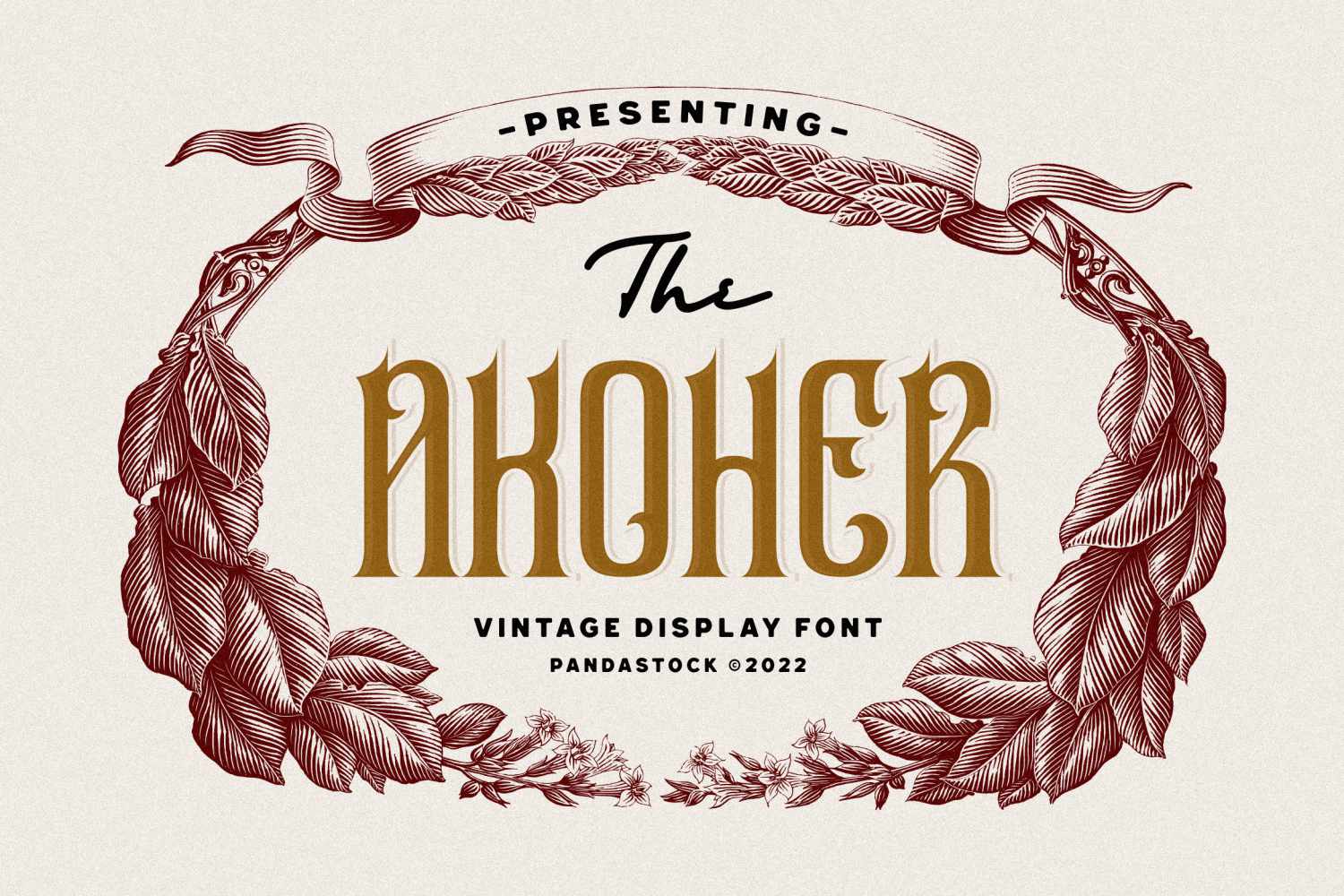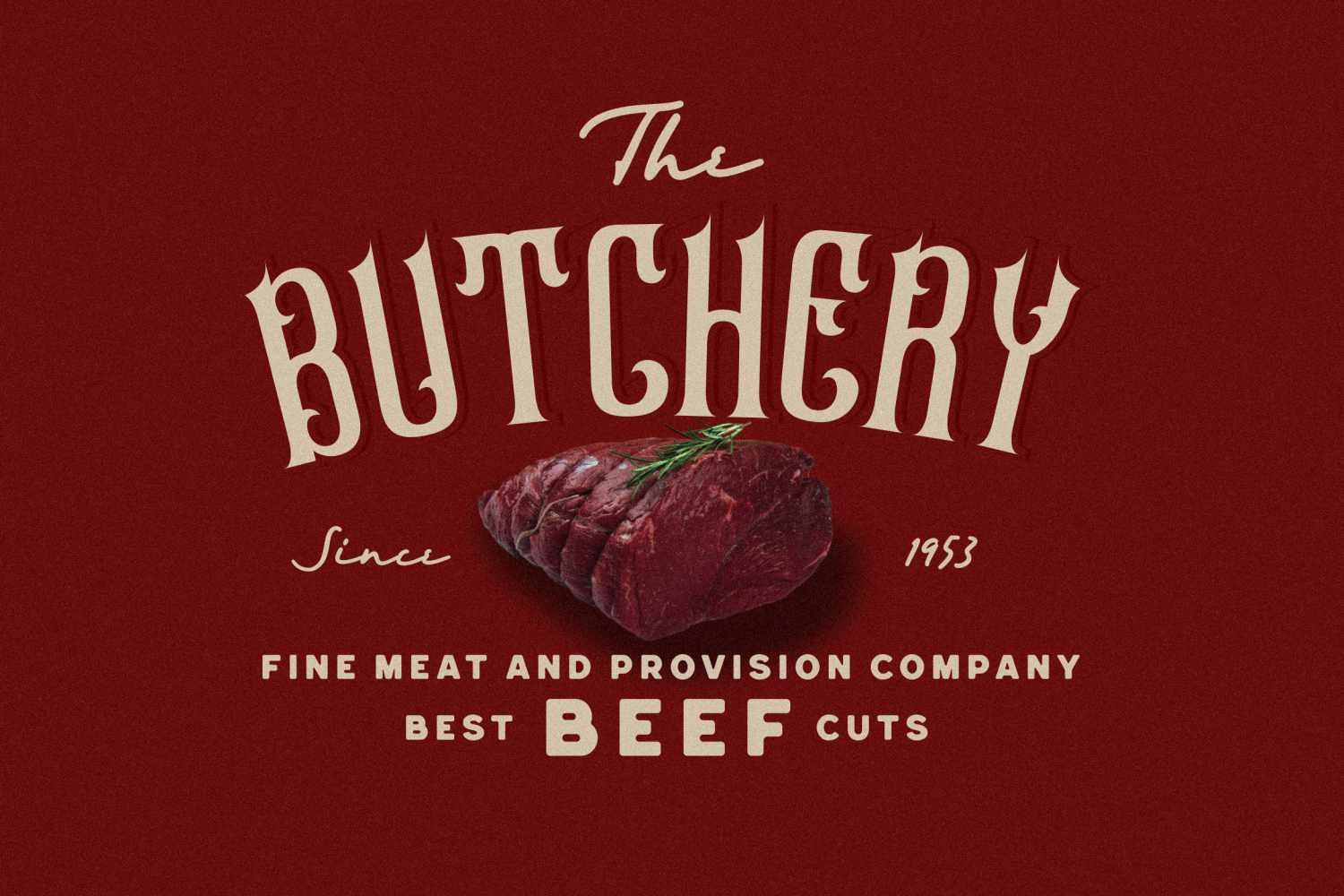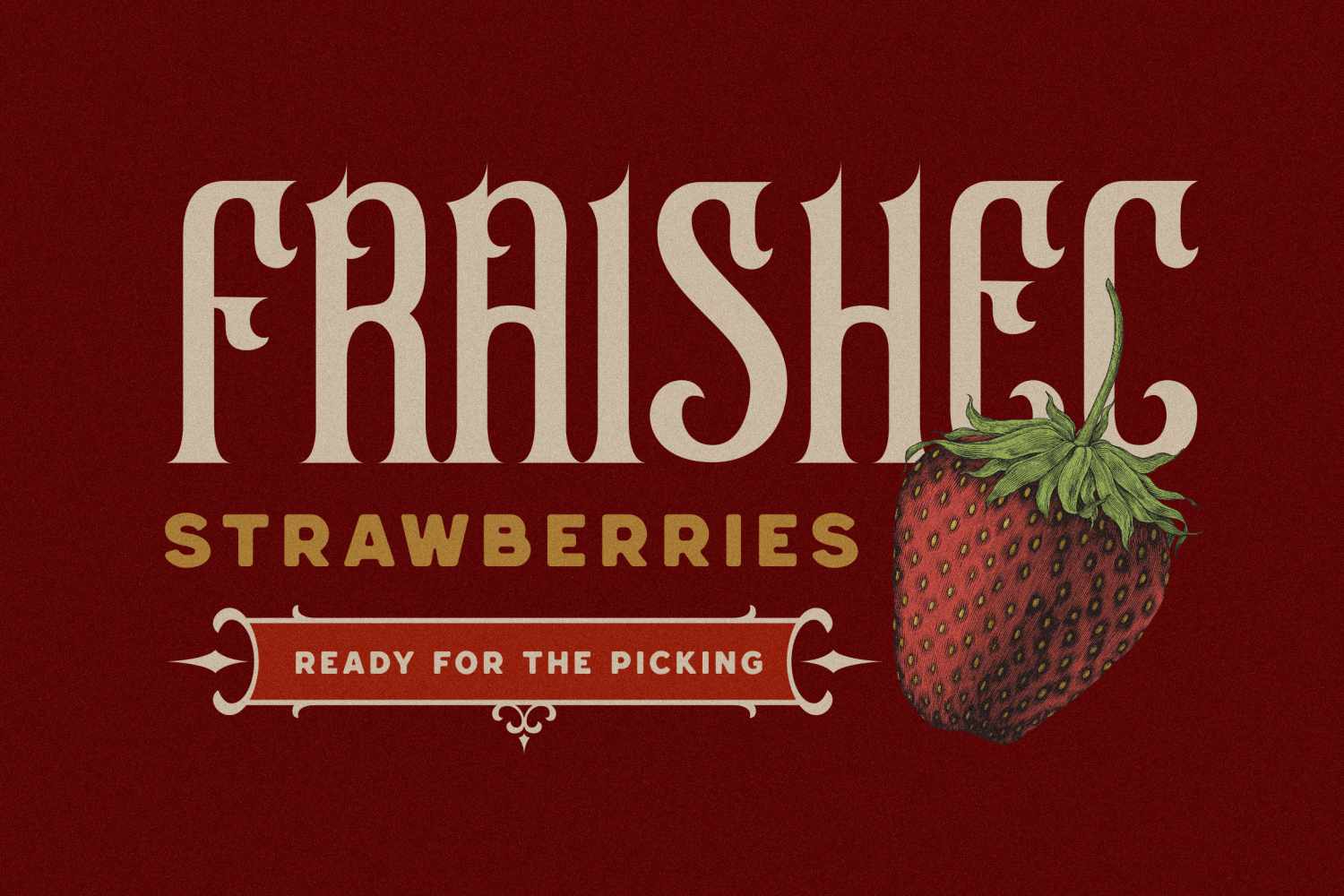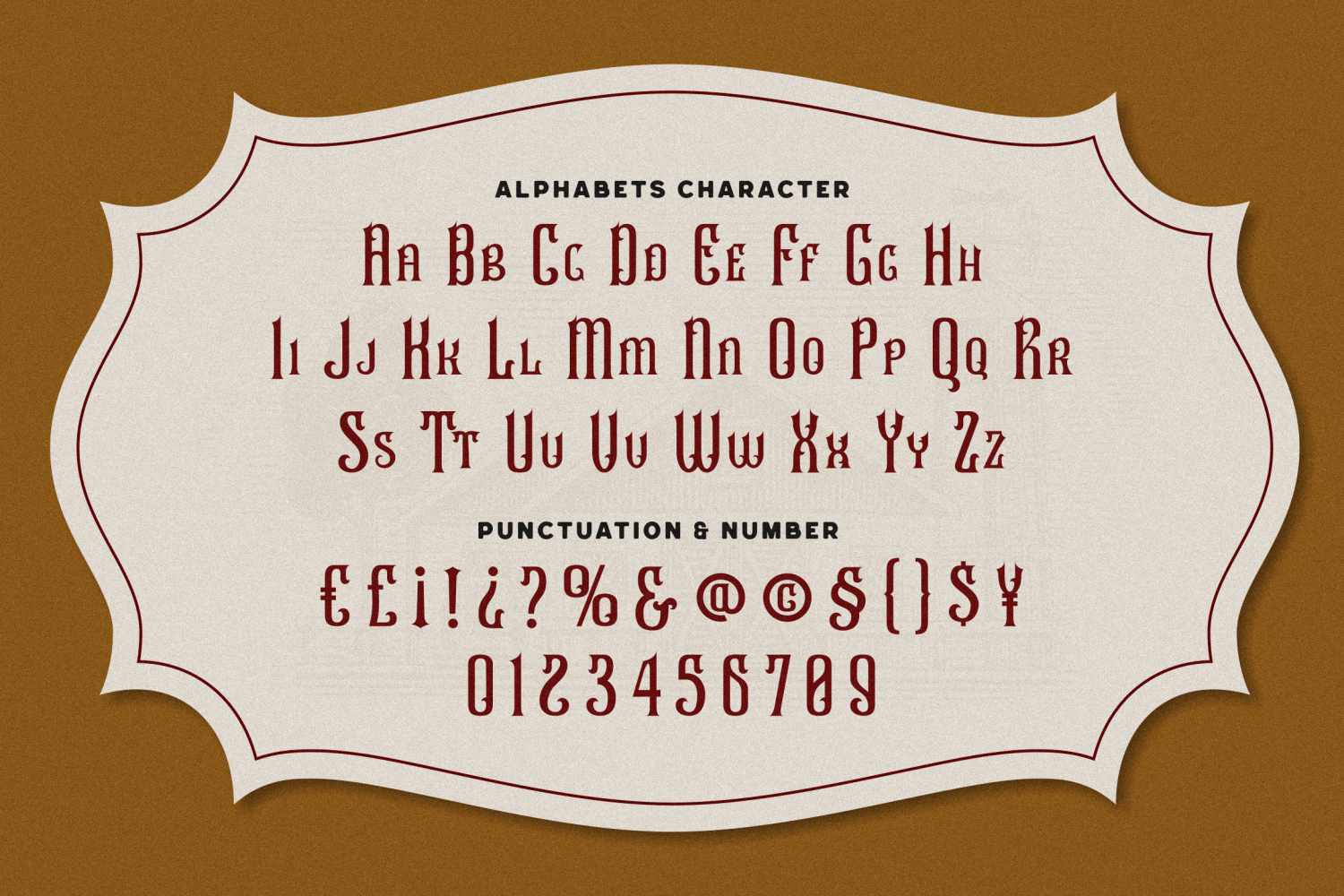
Akoher
Akoher is a vintage display font designed with bold strokes, sharp curves, and decorative details that echo the timeless charm of classic typography. Its tall letterforms and distinctive serifs make it an excellent choice for projects that require a strong visual presence with a touch of historical elegance. Inspired by old sign paintings and traditional advertising, Akoher brings an authentic retro atmosphere while staying versatile for modern applications.
Perfect for packaging, labels, logos, editorial layouts, or beverage branding, Akoher delivers a unique blend of readability and decorative flair. This font is especially effective in projects that demand authenticity and bold character, whether used in food products, retro posters, or stylish brand identities. With its balance of strength and sophistication, Akoher ensures your design stands out in any context.